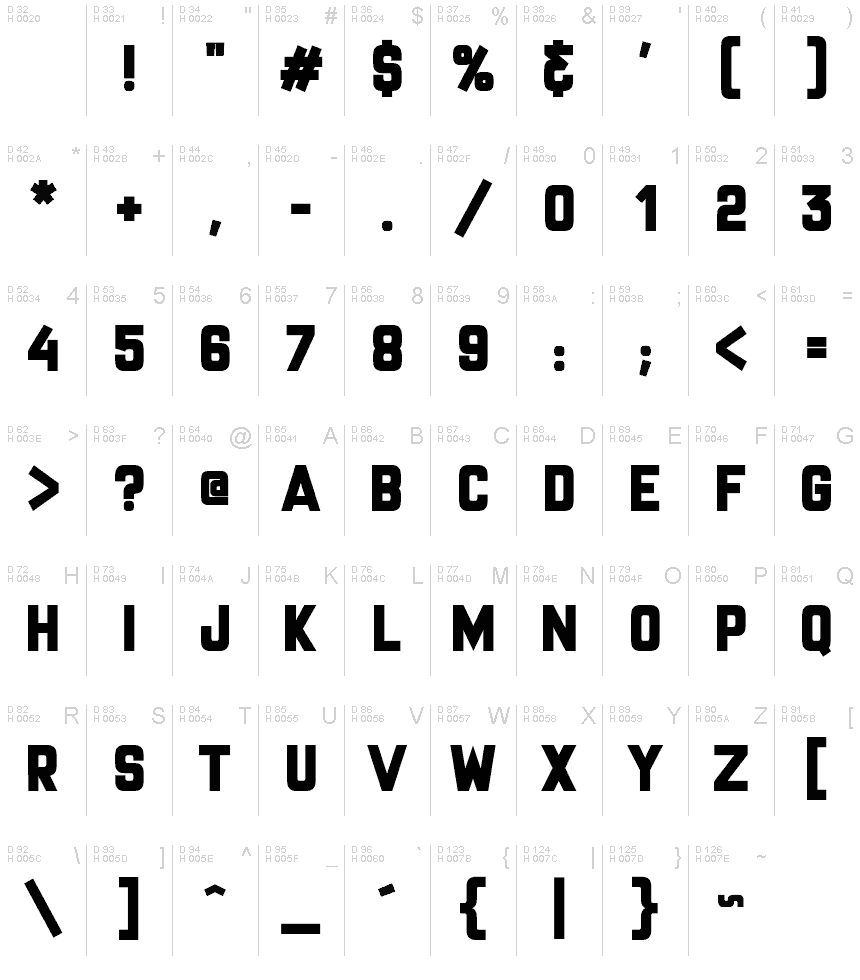
Mr Headlines
Mr Headlines is a striking, condensed sans-serif font that commands attention with its bold, angular letterforms. Designed by Imagex, this font exudes a sense of authority and confidence, making it an ideal choice for headlines, posters, and other high-impact design applications. The condensed width adds a sense of urgency and intensity, while the clean, minimalist aesthetic lends a modern, sophisticated feel.
Mr Headlines is a versatile font that can be effectively utilized in a range of design contexts, from corporate branding to editorial layouts, where a bold, eye-catching typeface is desired.